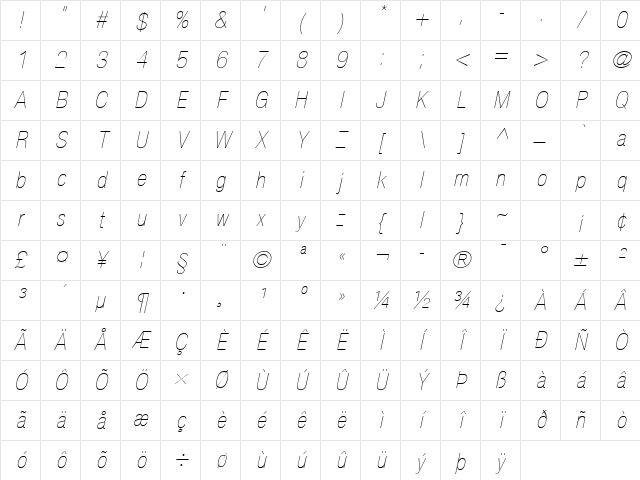
Helvetica Neue LT Com 27 Ultra Light Condensed Oblique
Designer: Linotype Design Studio
Complete Helvetica Neue LT Com 27 Ultra Light Condensed Oblique glyph index. Displaying only characters natively supported by Helvetica Neue LT Com 27 Ultra Light Condensed Oblique font.
Design Context for Helvetica Neue LT Com
Helvetica Neue LT Com is a composed and adaptable typeface that performs quietly and consistently across a wide range of design contexts. The slanted form adds forward momentum and visual energy. Its slender proportions lend an understated elegance to any composition. Its narrow stance lets it pack a punch even in space-constrained designs.
Pro Tip: Use Helvetica Neue LT Com for emphasis, pull quotes, and subheadings where its slanted energy can add rhythm to the layout.